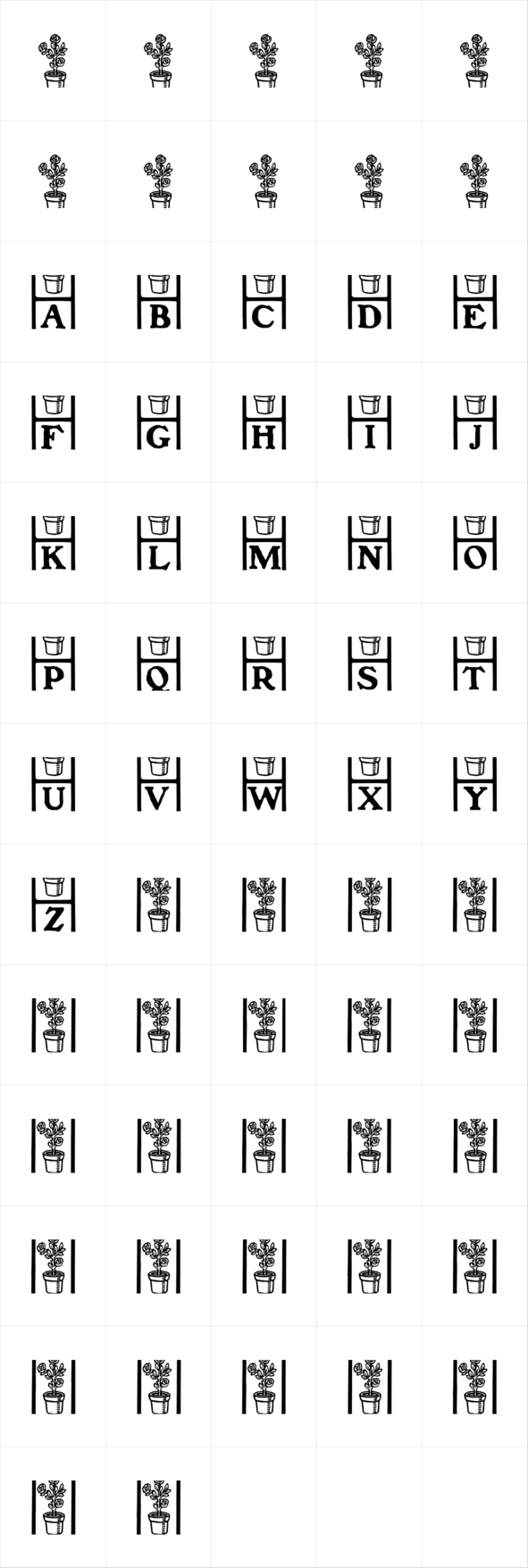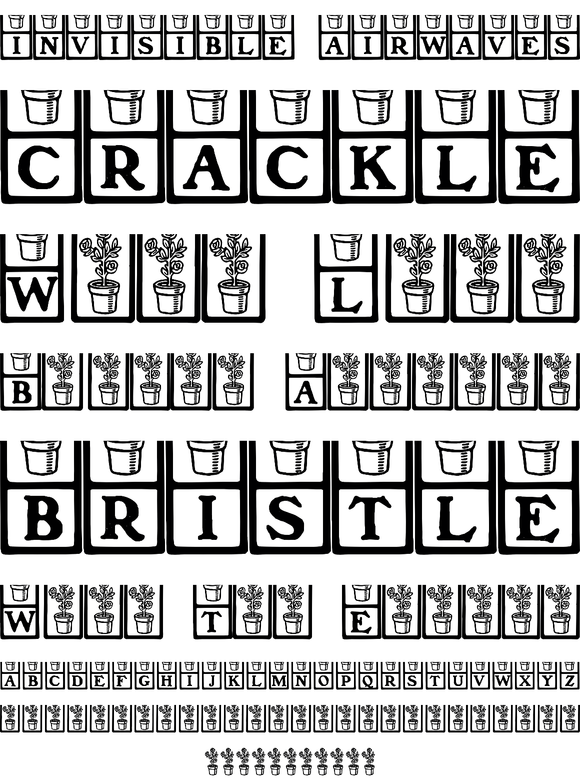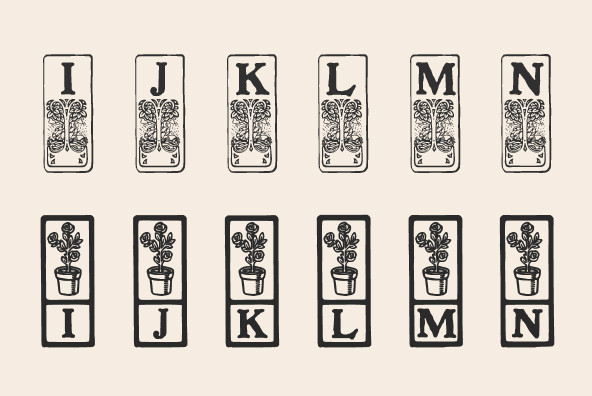
American Advertise
A classic decorative design remastered by Intellecta Design. Designed around an antique theme, American Advertise works great in display purposes. Contains a limited amount of letter designs, works best when used for headers.